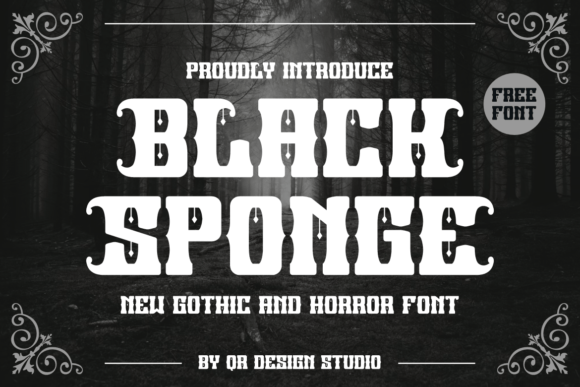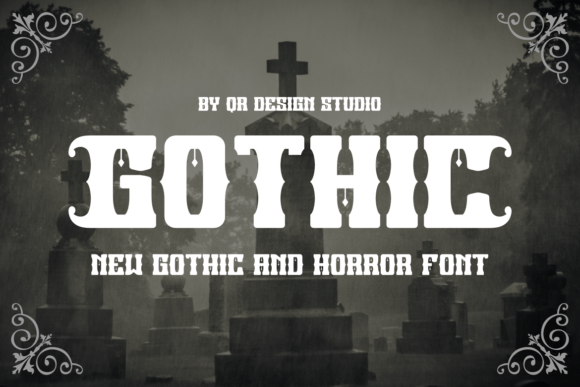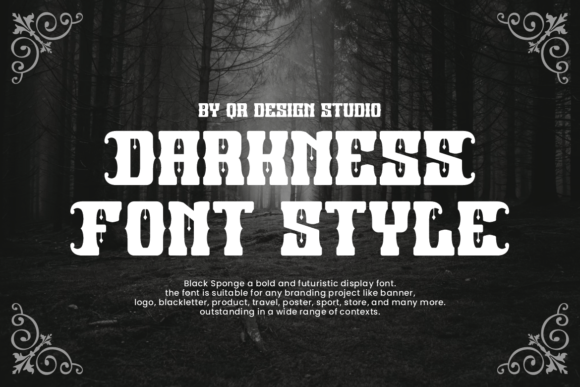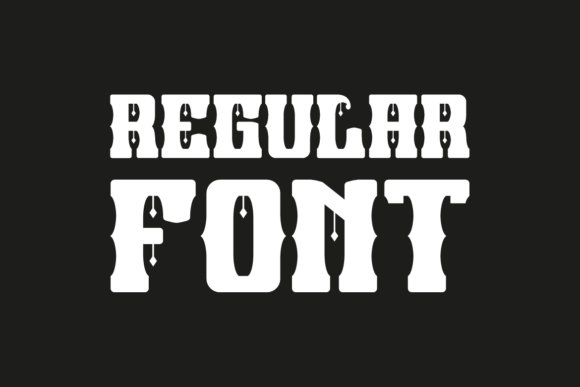
Black Sponge Font: A Bold Gothic Display Font for Dark & Halloween Designs
About the Black Sponge Font
Get ready to be inspired by Black Sponge Font, a fresh and dynamic typeface for modern creators. Black Sponge Font is a bold and authentic display font. The font is suitable for any branding project like logo, Halloween, dark, gothic, metal, food, poster, kids, sport, and many more. Outstanding in a wide range of contexts.
Black Sponge Font’s bold, slightly aggressive strokes make it ideal for headlines, posters, and short impactful branding statements. It excels in projects needing a strong visual presence, such as edgy clothing lines, horror movie posters, or heavy metal album art. Avoid using it for body text or lengthy paragraphs; its weight and unique character make it less legible at smaller sizes.
This font’s rebellious energy pairs well with clean, minimalist sans-serifs like Futura or Montserrat for a striking contrast. For a more harmonious combination, consider a classic serif like Garamond or a slightly more playful script font such as Pacifico, depending on the desired overall aesthetic.
Its core personality is bold and assertive, conveying a sense of power and confidence. Projects aiming for a dark, gothic, or grunge aesthetic will find Black Sponge Font particularly effective.